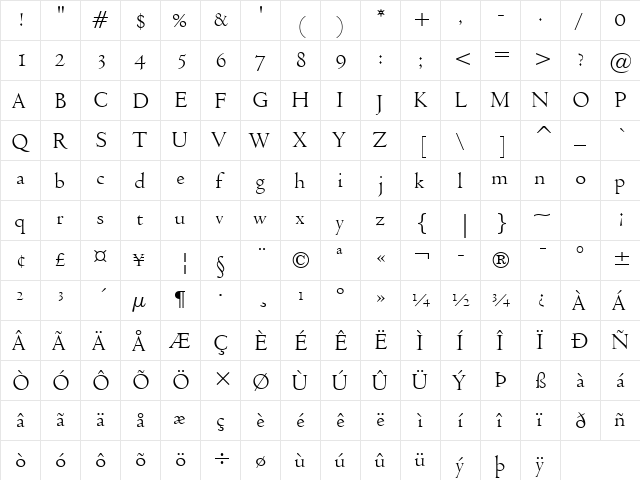
Venetian301 BT Roman
Design Context for Venetian301 BT Typeface
Venetian301 BT takes a measured approach to typography — its balanced proportions and neutral character make it a reliable workhorse for both digital and print work.